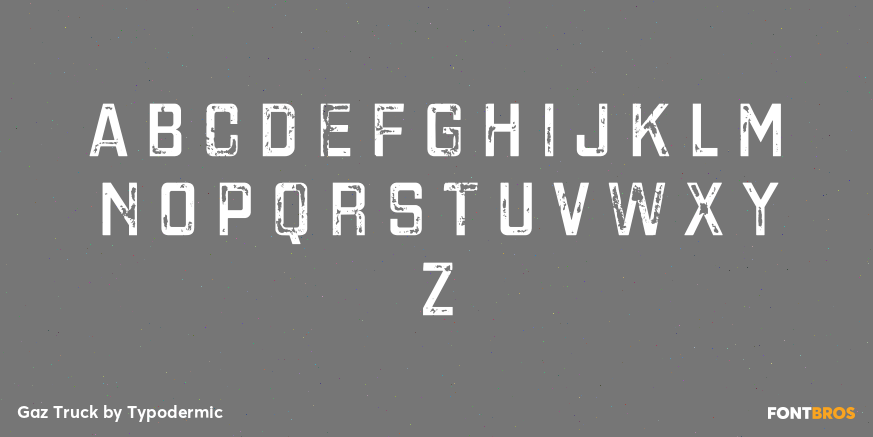
Gaz Truck
Gaz Truck uses Gaz's regular-width, medium-weight skeleton with most of its base contours still recognizable. Localized broad scrapes, hard-edged chips, and peeled-paint-like patches create a sectional kind of damage. The marks are coarser than Grease's dragged perimeter but less massive than Tank's deep knockouts, leaving enough clean structure for several lines of headline-sized text.
Use Gaz Truck for fleet-workshop signage, maintenance-vehicle graphics, roadside-assistance campaigns, parts-department cartons, logistics-depot signs, and agricultural or municipal machine model names. It suits searches for a chipped-paint truck font or weathered fleet lettering that remains clear on posters, packaging, uniforms, vehicle decals, and trade-show panels.